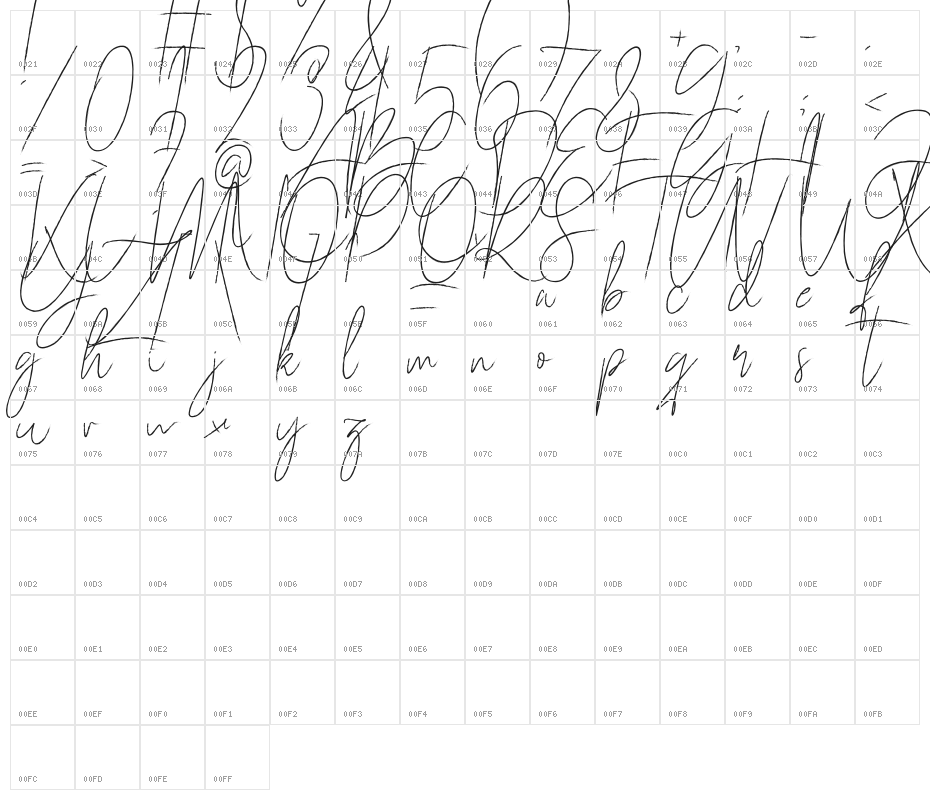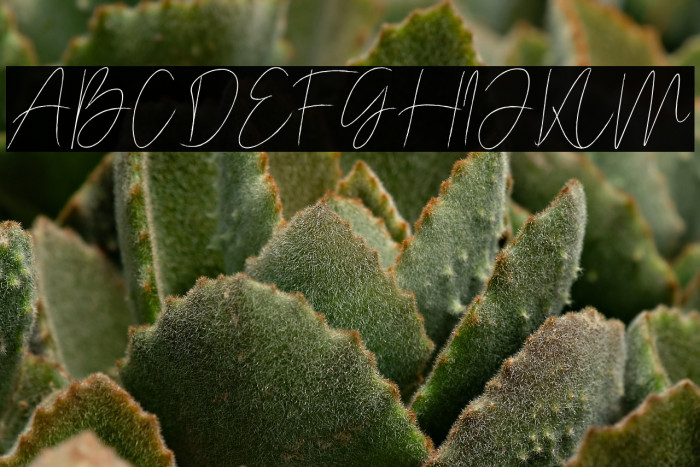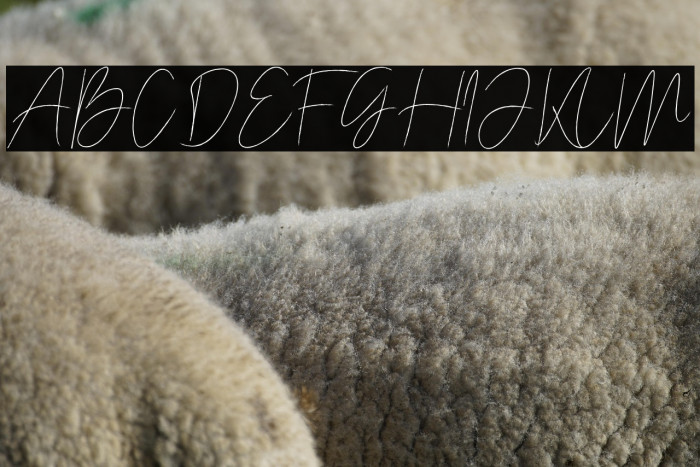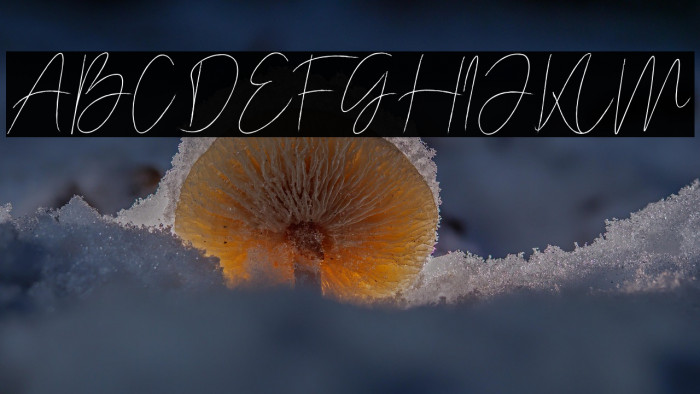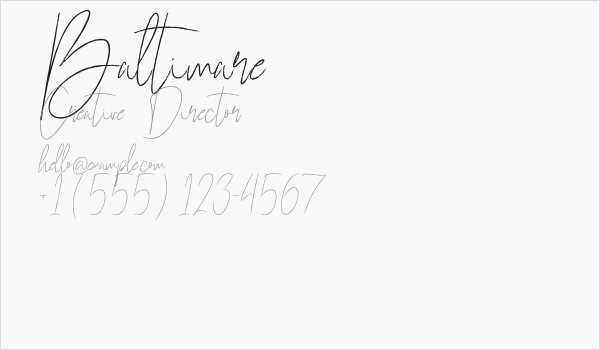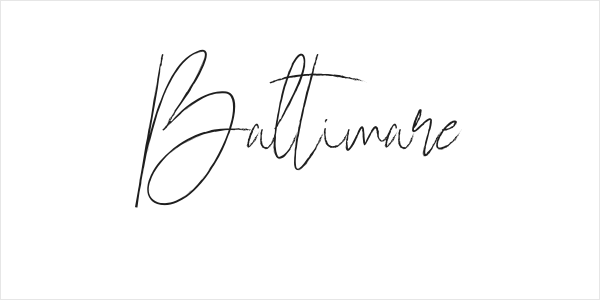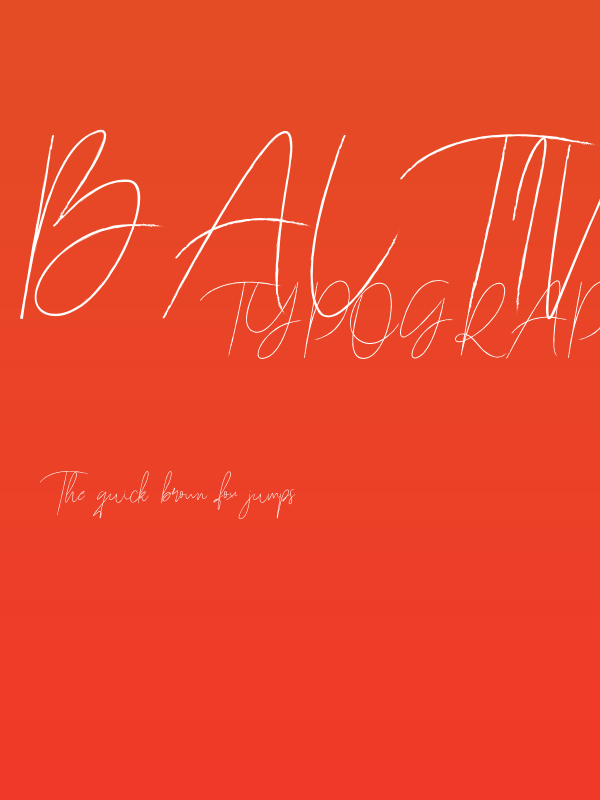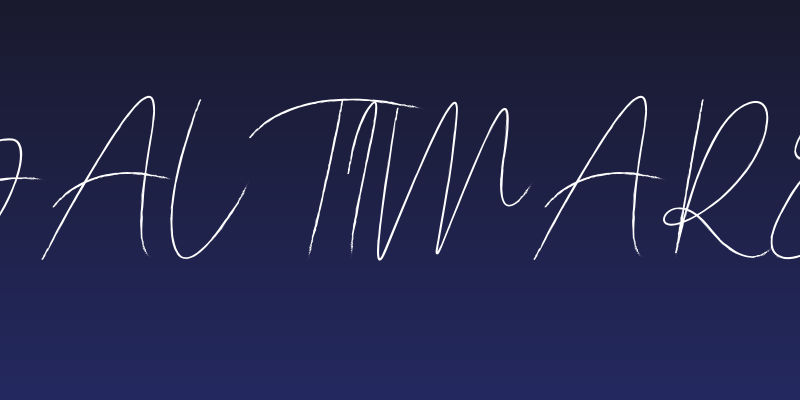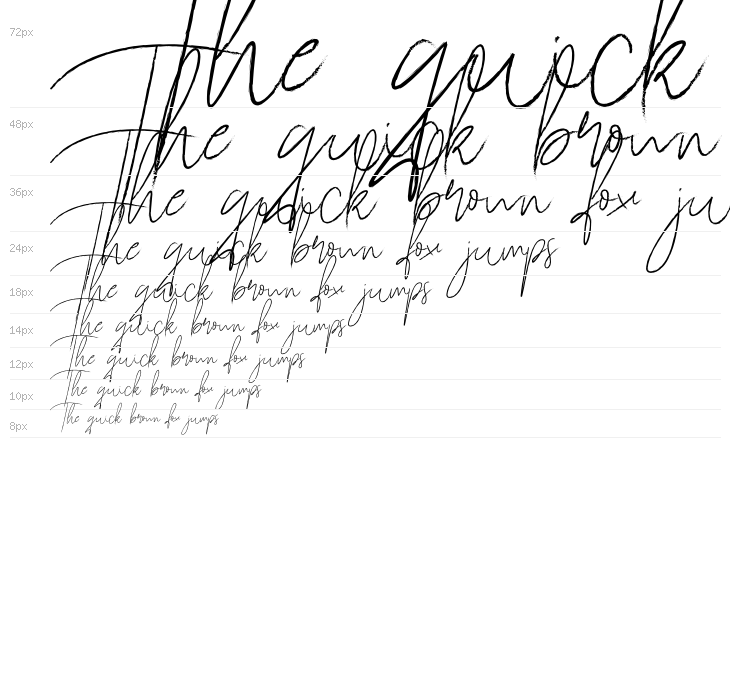
Baltimare Font
Baltimare Description
This font features a dynamic and fluid handwritten style, characterized by its elegant and flowing letterforms. The uppercase letters are tall and slender, with a slight slant that adds a sense of motion and grace. The lowercase letters are more compact, maintaining the same fluidity and connectedness, which gives the font a cohesive and harmonious appearance. The numerals and special characters follow the same stylistic cues, ensuring consistency across all glyphs. The strokes vary in thickness, providing a natural and organic feel, reminiscent of ink on paper. This font exudes a sense of personal touch and creativity, making it ideal for projects that require a humanistic and artistic flair.
| Overall Style | Artistic |
| Proposed Projects | Ideal for wedding invitations, personal branding, artistic projects, and creative logos. |